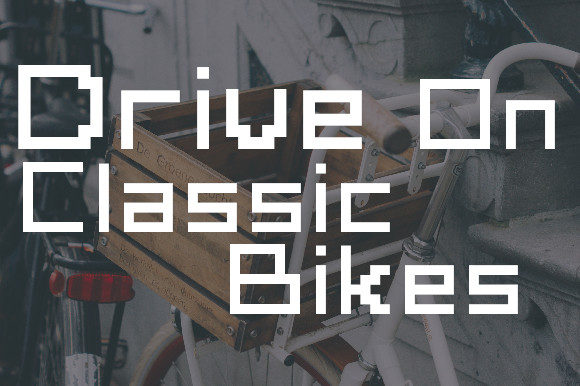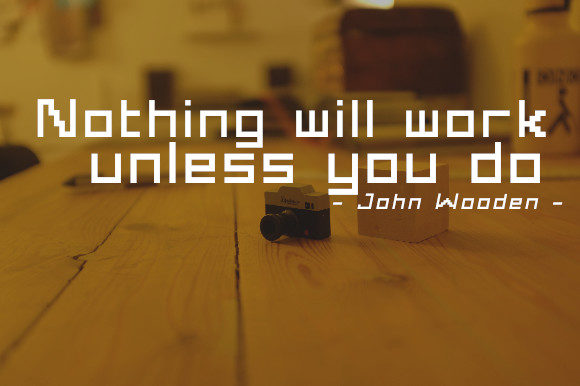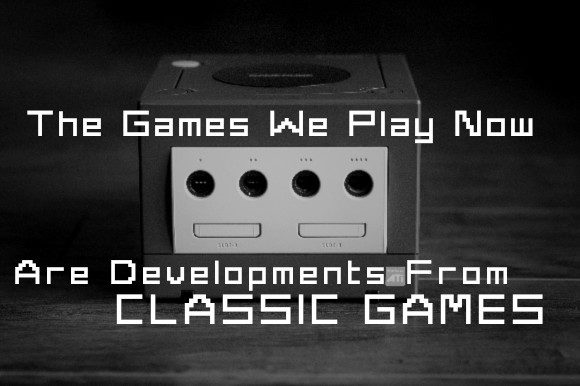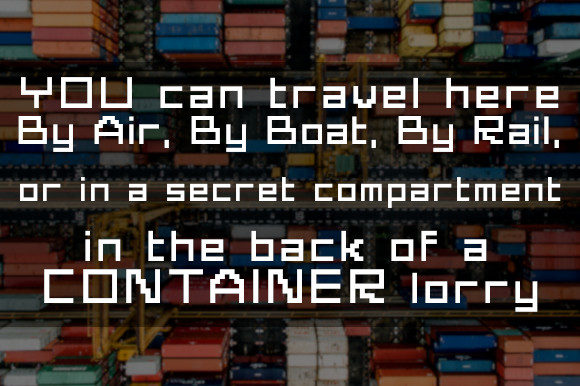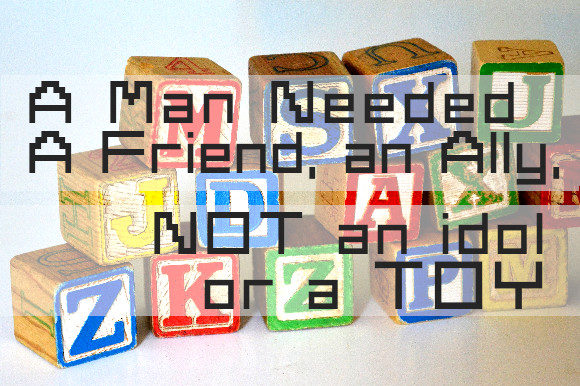
Unlocking the Power of Retro Gaming in Typography
Have you ever stared at a pixelated screen, mesmerized by the retro computer games of yesteryear? The nostalgic charm of those blocky characters and fonts still resonates with many of us today. As designers, we often find ourselves drawn to the unique aesthetic of this bygone era, and now, we can bring that same magic to our typography.
Enter the Box Collider Font, a fun and bold decorative font that pays homage to the technical twist of retro computer games. This font is not just a nod to the past, but a valuable tool for designers looking to add some visual interest to their projects. With its clean lines and geometric shapes, Box Collider Font is perfect for adding a touch of nostalgia to your designs.
Whether you’re working on a branding project or creating a retro-inspired artwork, the Box Collider Font is an excellent choice. Its versatility and unique character make it a valuable addition to any designer’s toolkit.
Key Features of Box Collider Font
- Font Family: Box Collider is a sans-serif font family with a modern and geometric design.
- Character Set: Supports a wide range of languages, including Latin, Cyrillic, and Greek alphabets, making it suitable for multilingual designs.
- Unique Characteristics: Box Collider’s distinctive geometric shapes and clean lines make it an ideal choice for modern designs, such as tech, gaming, and minimalist branding.
Box Collider Font Review
Overall, I think the Box Collider Font is a great choice for digital designers, but it’s not without its limitations. ✨ One of the standout features of this font is its versatility. It works well for both body text and headlines, and its clean design makes it easy to read on a variety of devices.
Here are some of the things I like about the Box Collider Font:
- ✨ The font is highly customizable, making it easy to adjust the size, color, and spacing to fit your design needs.
- ✨ The font is available in a range of weights, from light to bold, which gives you a lot of flexibility when it comes to choosing the right style for your design.
- ✨ The font is highly legible, even at small sizes, which is a must-have for any font.
- ⚠️ The font may not be the best choice for titles or headings that require a lot of flair or personality.
- ⚠️ The font may not work well in very small sizes or on low-resolution screens.
- ⚠️ The font may not be the best choice for designs that require a lot of creative freedom or experimentation.
Overall, I think the Box Collider Font is a solid choice for digital designers who need a clean, versatile font that works well in a variety of situations.
Box Collider Font is ideal for:
- Graphic design and branding
- Typography-based designs
- Modern and minimalist designs
For the best results, use Box Collider Font with bold colors and clean backgrounds.
Typography Alternatives to Box Collider Font
Open Sans is a clean and modern sans-serif font, suitable for digital products, apps, and websites. It’s highly legible and versatile, making it a great choice for body text and headings.
Compared to Box Collider Font, Open Sans has a more neutral tone and a larger character set, making it a more suitable choice for long-form content. However, Box Collider Font has a more geometric feel, which may be preferred for certain design styles.
Montserrat is a geometric sans-serif font, inspired by urban environments. It’s ideal for headings, titles, and short-form content, where a bold and modern feel is desired.
Compared to Box Collider Font, Montserrat has a more condensed character set and a stronger geometric feel, making it a better choice for titles and short-form content. However, Box Collider Font has a more relaxed tone and a larger character set, making it more suitable for body text.